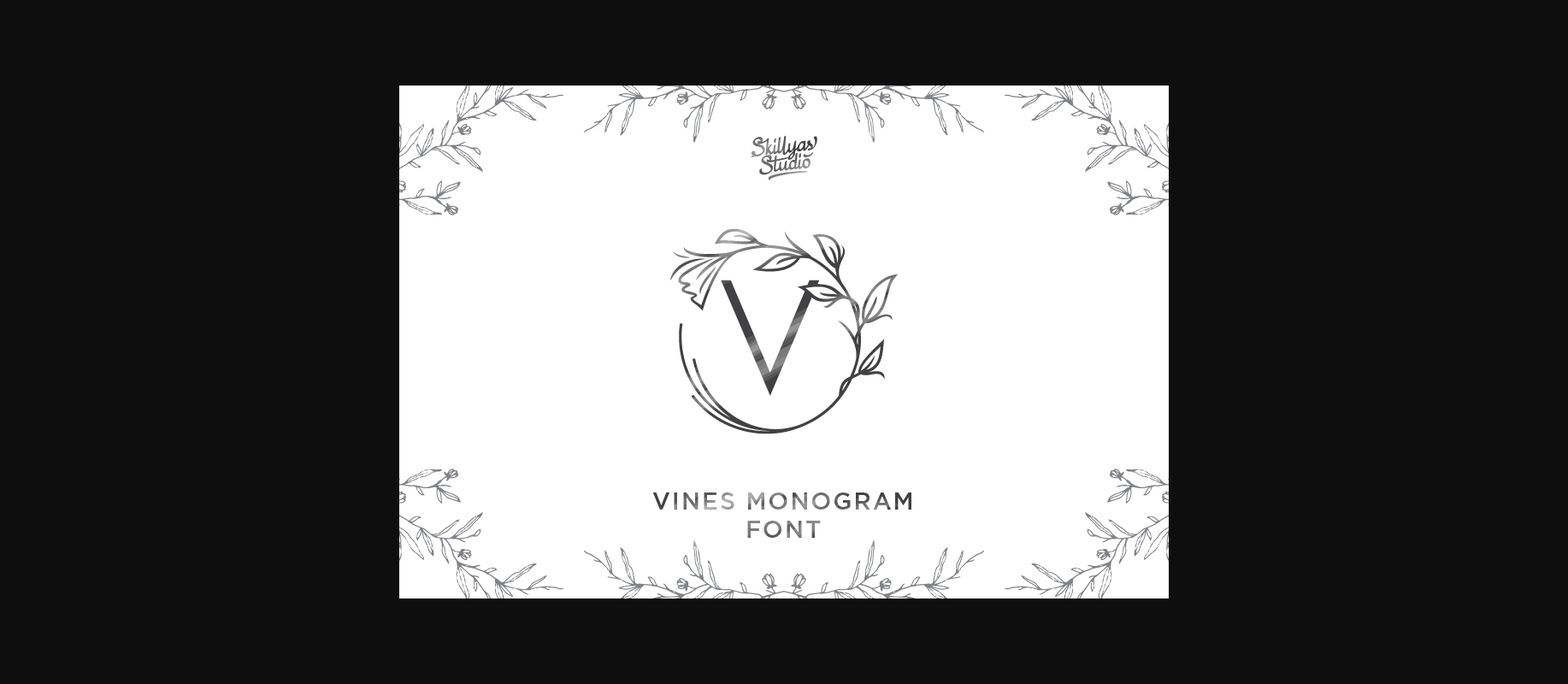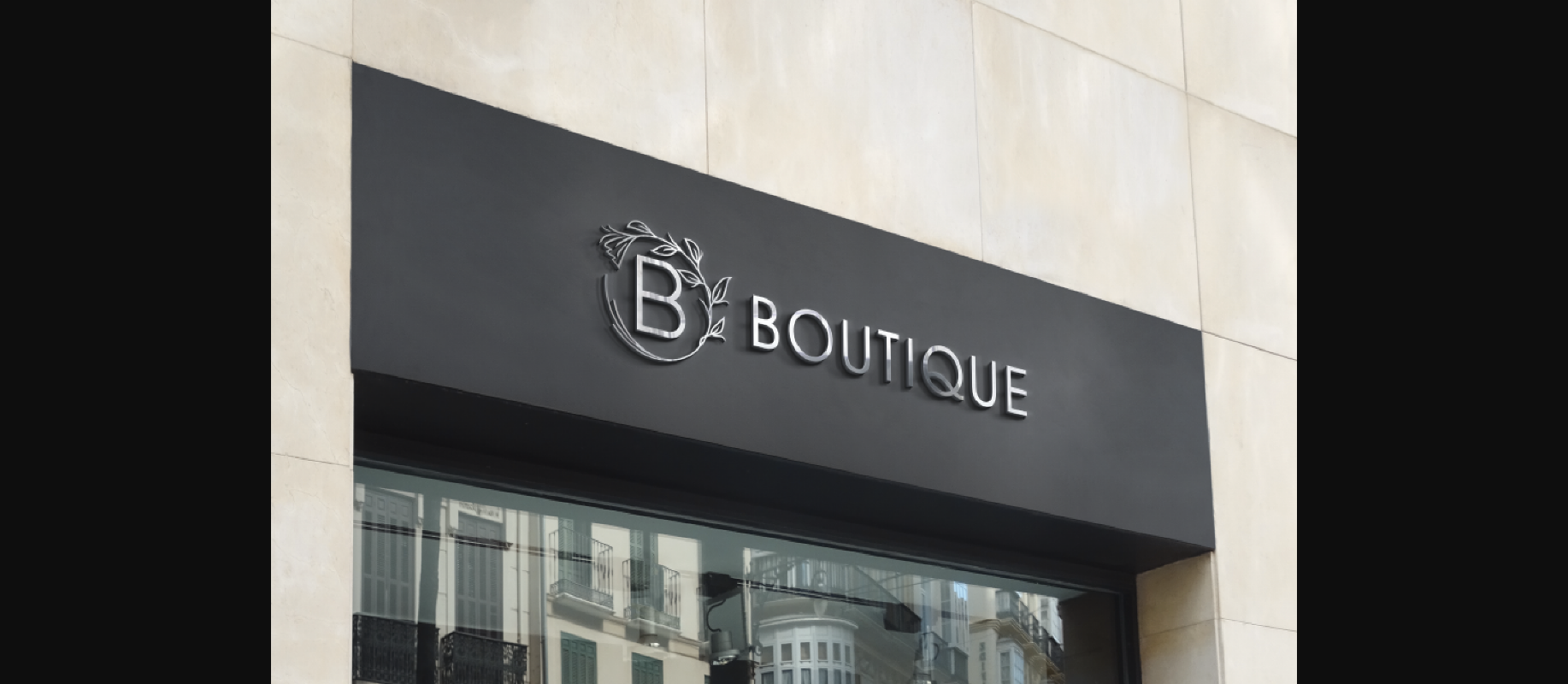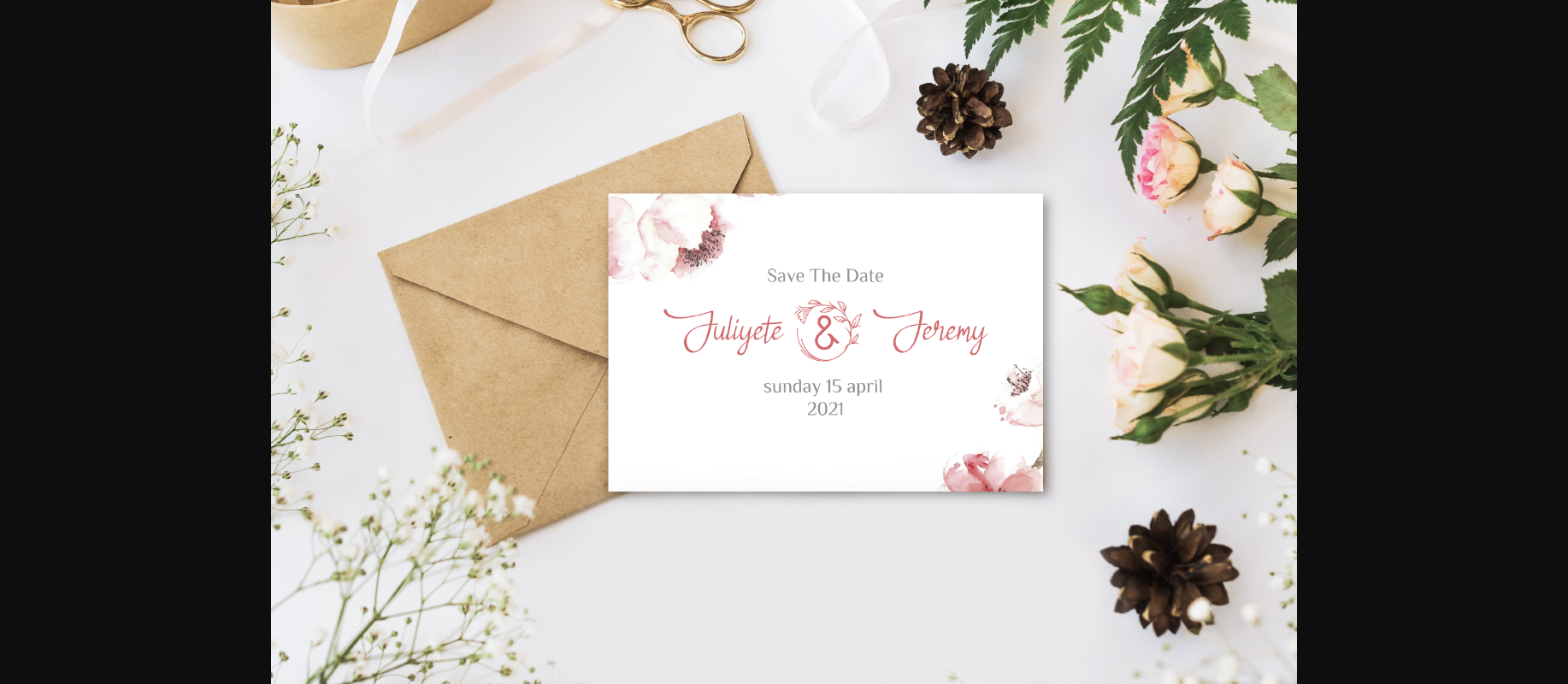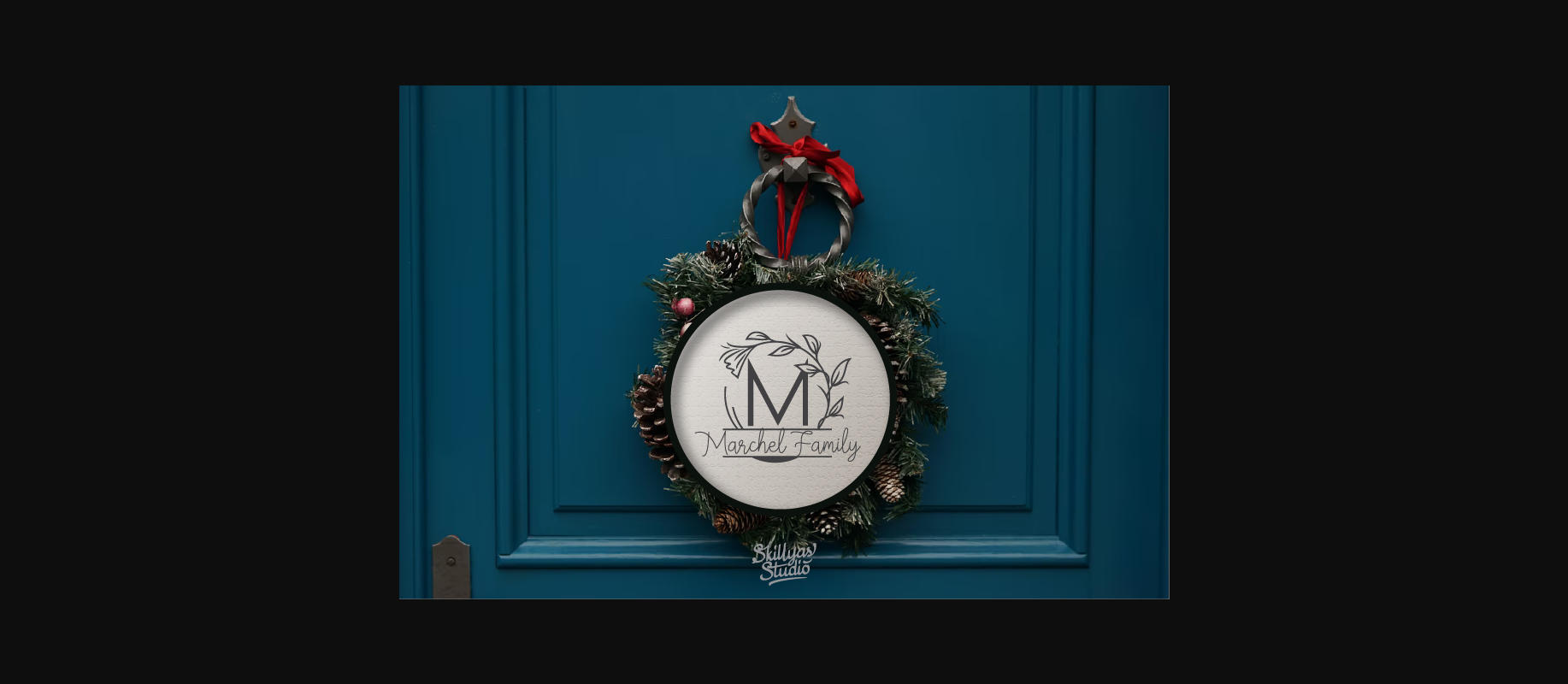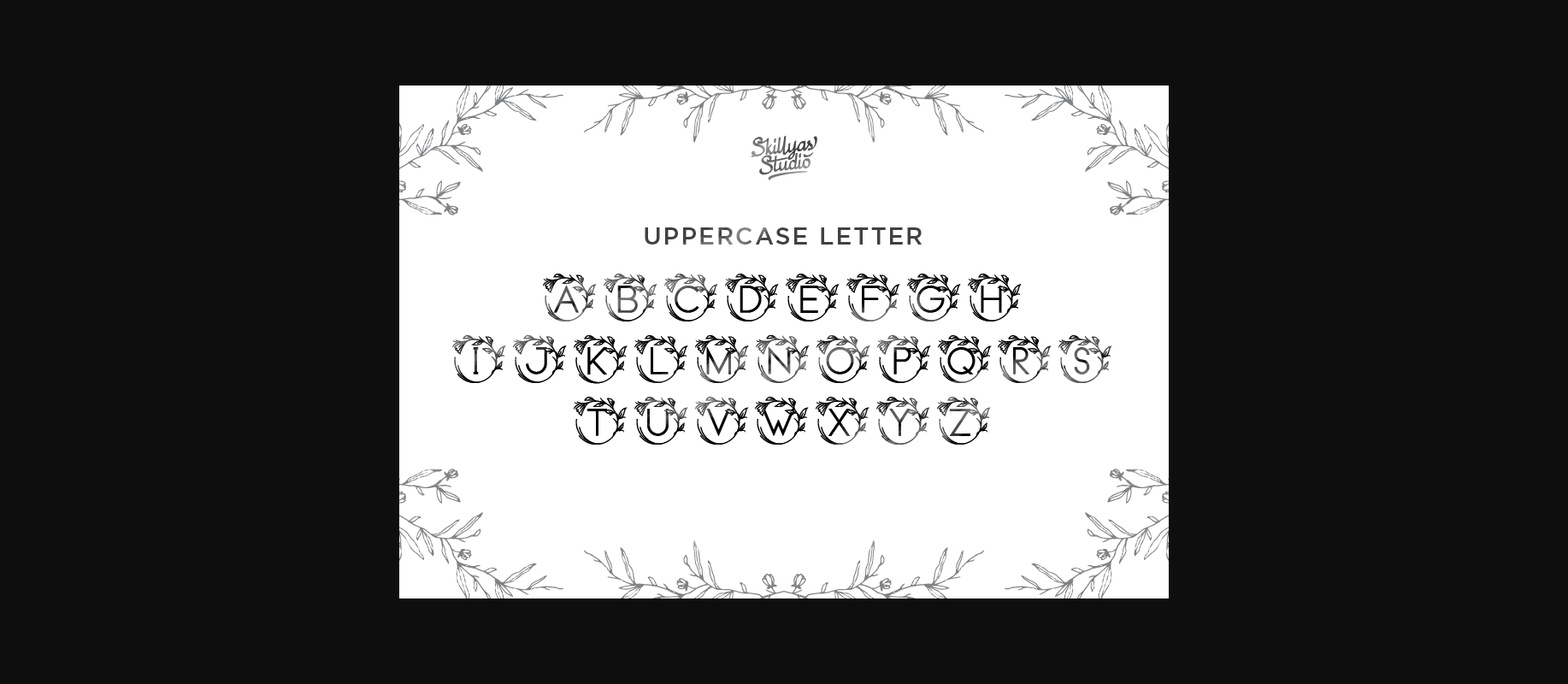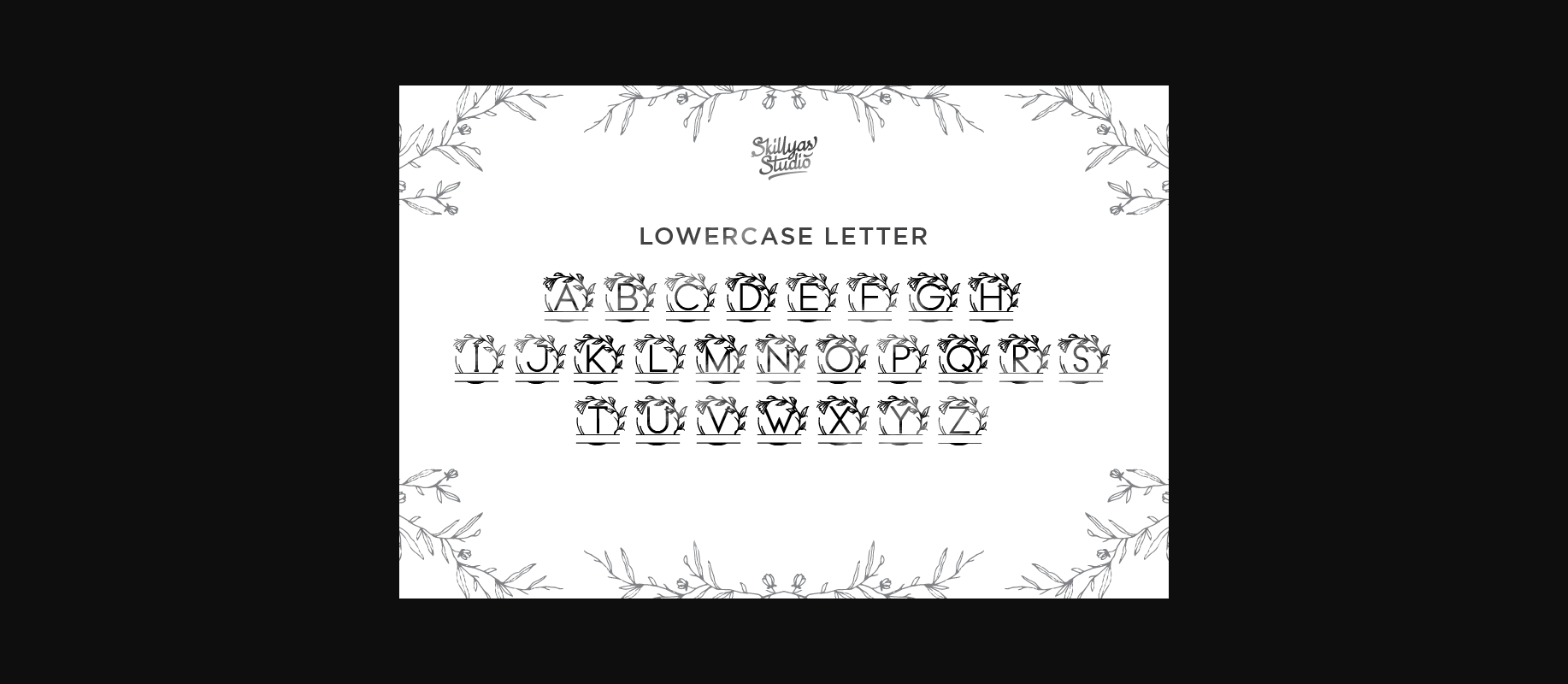
Monogram Vine Letter Font
About Monogram Vine Letter Font
Monogram Vine Letter is an incredibly delicate and sweet decorative font. Whether you’re using it for crafting, digital designing, presentations or greeting cards making, it’s perfect!